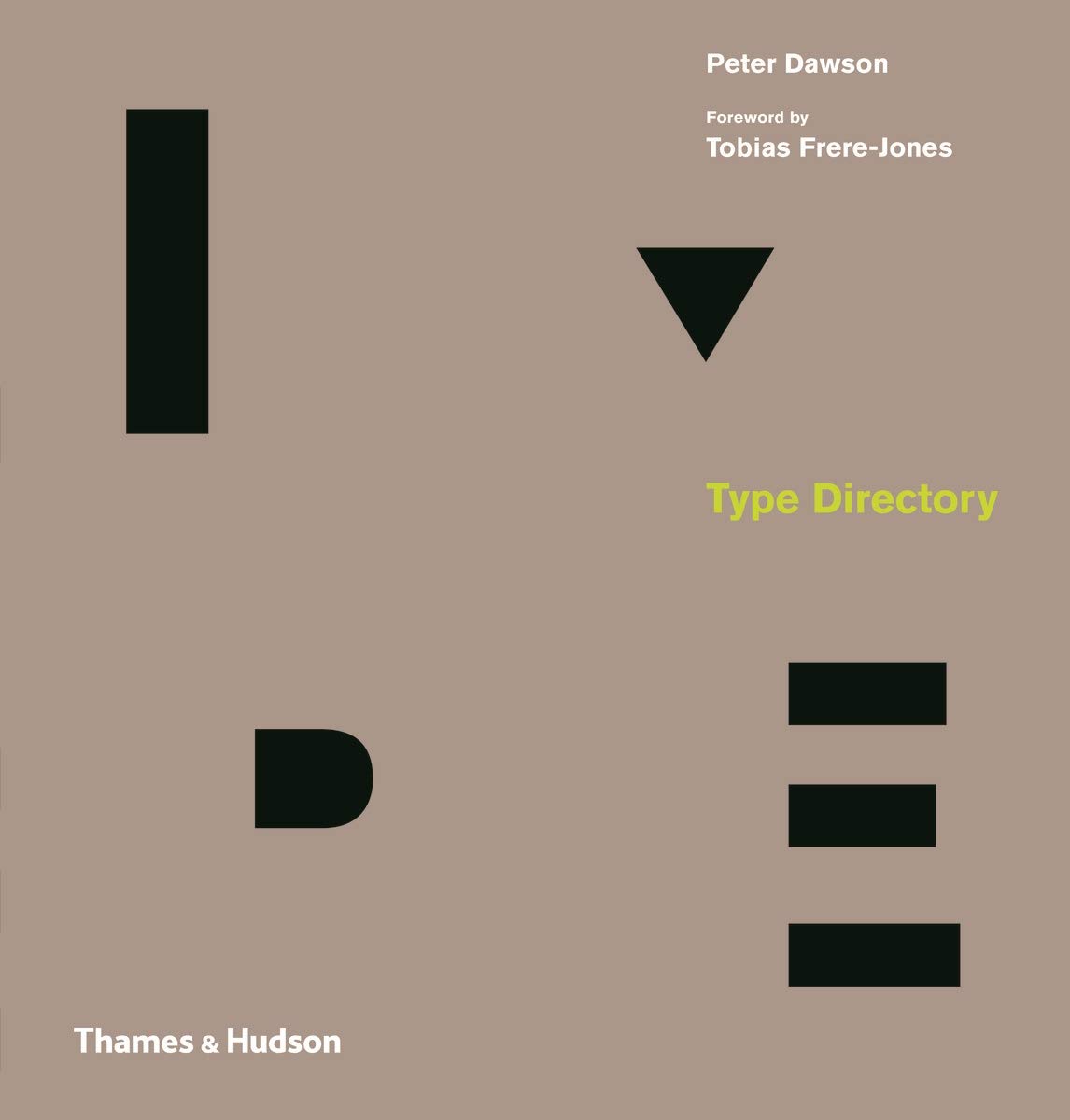
Type Directory
The ultimate visual encyclopaedia of type, featuring more than 1,800 typefaces
Wherever we go and whatever we do, the printed word plays a part in every aspect of our day-to-day lives. Behind all the messages we see, read, and absorb, the design and choice of typeface dictate the tone, context and immediacy of these words. From advertising and news headlines to book jackets or wayfinding at an airport, choosing the most appropriate typeface is not an easy task, nor one based on aesthetic alone.
With such a diverse and inspiring range of types now on offer, Type Directory separates and identifies these forms to provide a comprehensive selection of available typefaces. Over 1,800 typefaces are organized by category – Serif, Sans Serif, Display and Script – and subsequently arranged by recognized sub-categories. This allows the reader to make a direct comparison of typefaces with a similar appearance, thus facilitating a deeper understanding of the design and selection process. A visual celebration of the craft, innovation and beauty of these letterforms is presented throughout, from classic typefaces like Garamond, Bodoni and Times through to the contemporary Bliss, Gotham and Meta.
The ultimate visual encyclopedia, Type Directory is an essential creative tool for novices and aficionados alike. This sumptuous sourcebook will inform, educate, inspire and stimulate as a must-have reference title.